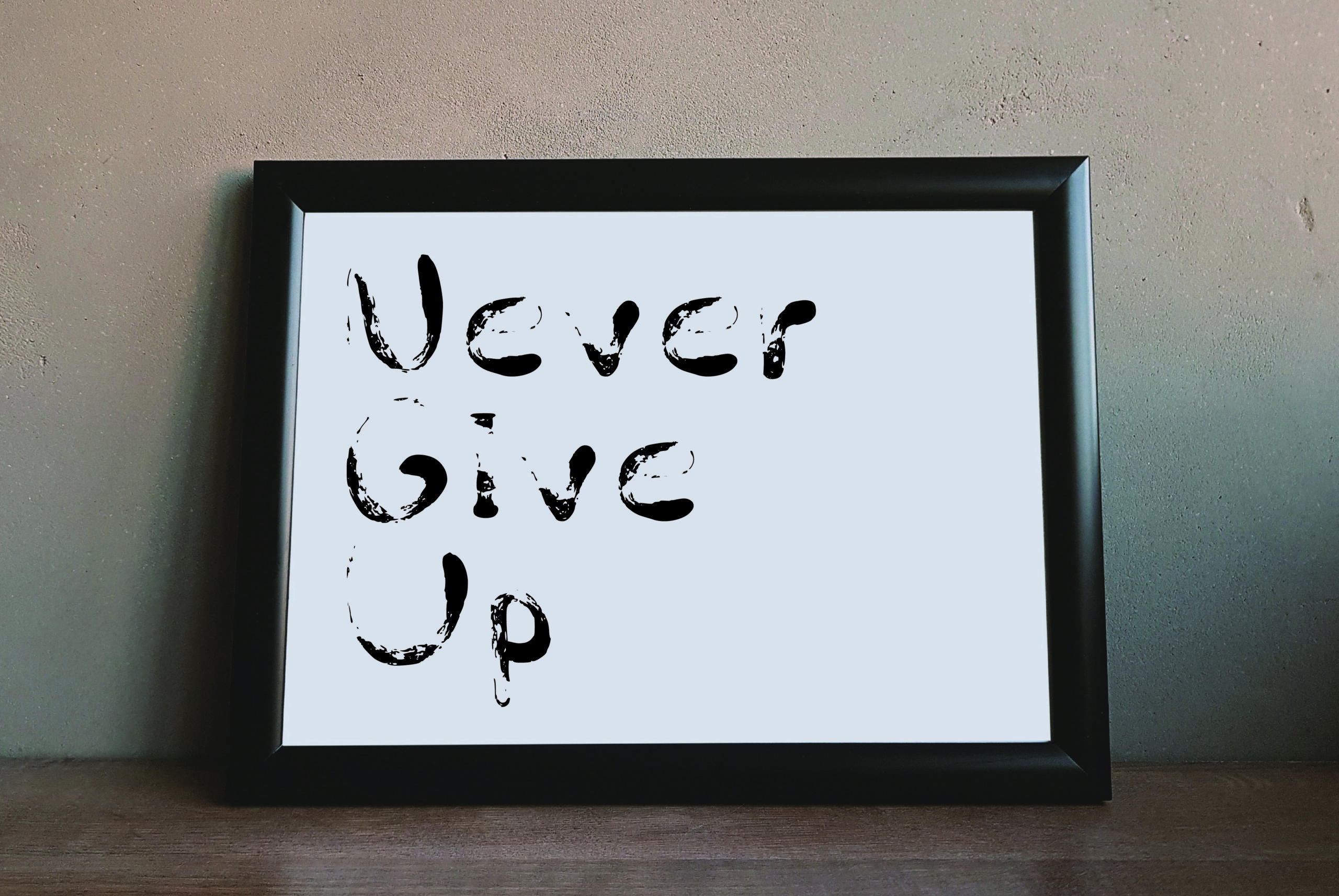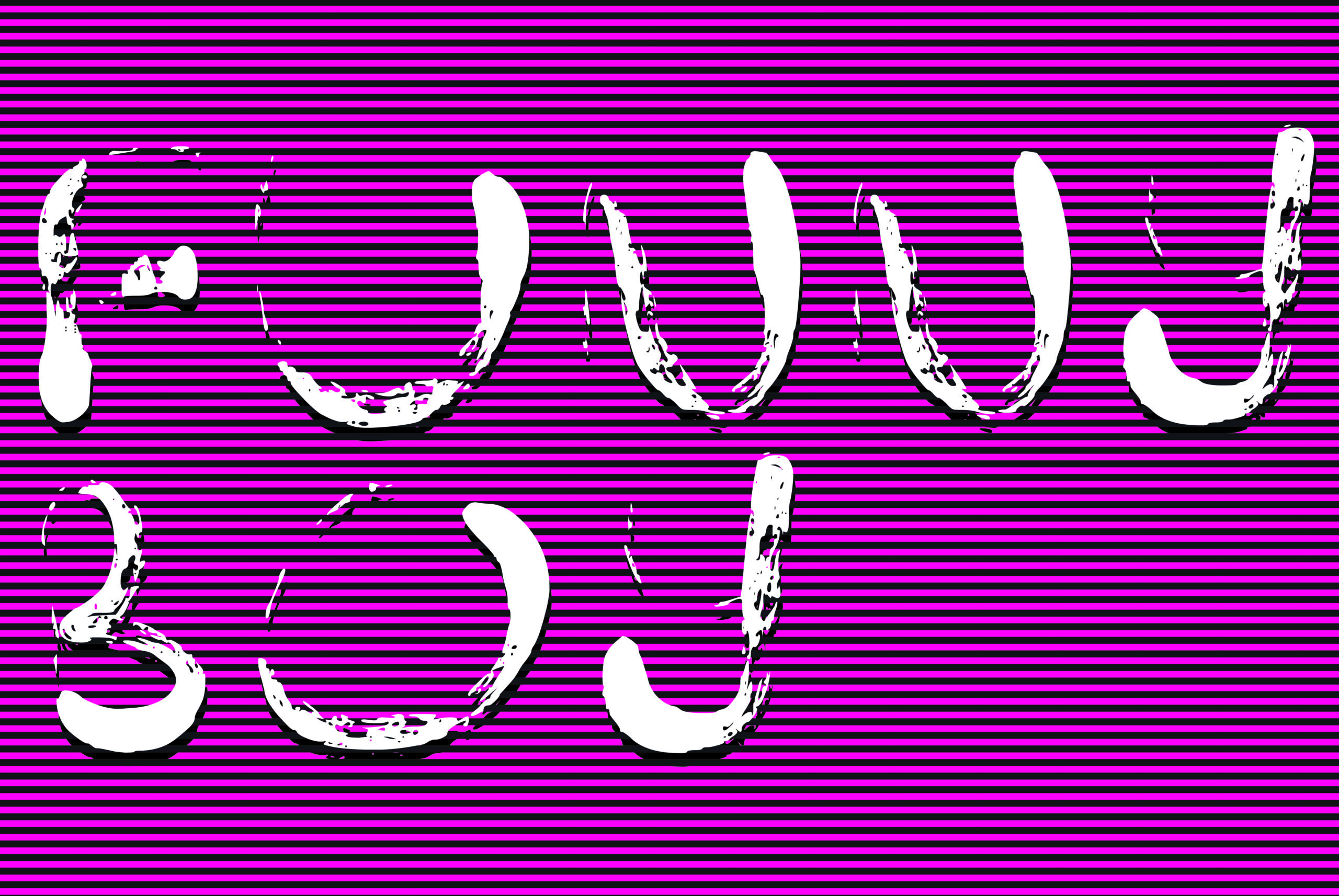
Slug Font
About Slug Font
“Oh slug, where on earth do you dwell? Where is your home? The snail has his shell to reside within. The worm the cosy confines of the very ground we tread upon – but, alas! A slug has to put up with everything Mother Nature throws its weary way. Its real home? Your designs, of course! It’s a tough life and our newest font, Slug, coveys all the slimy ups and downs of the poor old slug’s life. A slippery, sticky, decaying font akin to what you might find in your garden, green patch or forest. Our type has the full range of upper, lower, numbers and symbols all in a glorious decaying and rough hand written style design. The style maybe icky, slimy and a bit rotten but it sure does the job. All hail the Slug!”